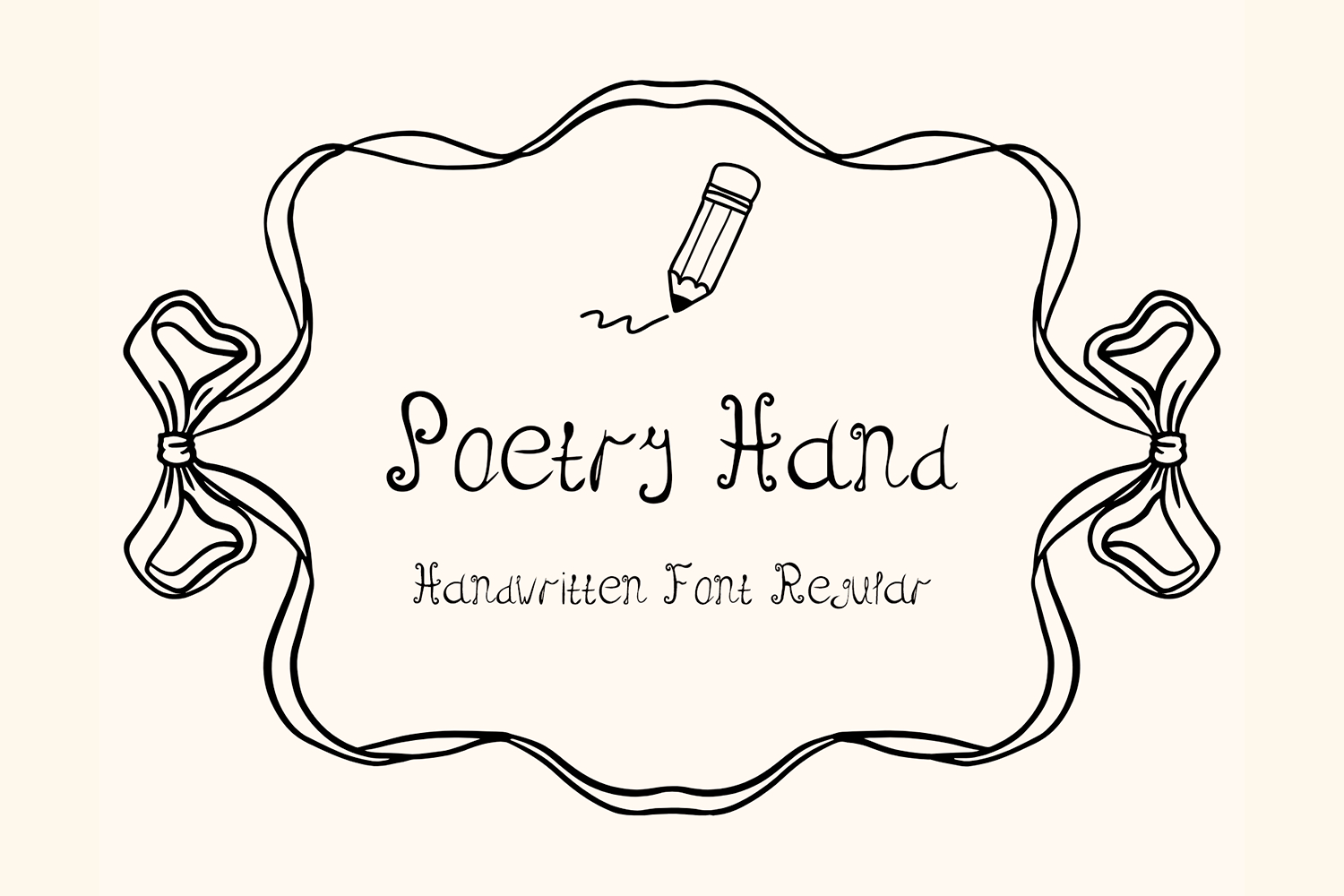
Poetry Hand Handwritten Font
Poetry Hand
Step into a world of elegance and inspiration with Poetry Hand! This graceful handwritten font, as if written by a talented poet, will infuse your projects with sophistication. Ideal for creating an atmosphere of warmth, creative freedom, Poetry Hand will become your indispensable tool in the world of design.
Imagine how Poetry Hand will transform your projects:
Logos and Branding: Create a unique image for your brand, emphasizing its uniqueness and sophistication. Ideal for handmade, cosmetics, confectionery and more. Invitations and Cards: Gift your loved ones and friends unforgettable moments by decorating invitations and cards with the graceful handwriting of Poetry Hand. Websites and Blogs: Add a touch of elegance and warmth to your online space by using Poetry Hand in headings, accents and quotes. Social Media: Capture your audience's attention and create a unique style by decorating your posts and stories with Poetry Hand's exquisite handwriting. Product Packaging. What you get with Poetry Hand:
Elegant Handwritten Font: Clean lines, smooth transitions, and unique flourishes create a unique handmade effect. Multi-Language Support: Use Poetry Hand to create projects in multiple languages. Large Glyph Set: Includes standard symbols, numbers, punctuation, and a variety of alternate glyphs to create unique compositions. Ease of Use: Integrates with all popular graphic editors. Poetry Hand is more than just a font. It is a tool that allows you to express your feelings, convey your ideas, and create something truly special.
Poetry Hand Handwritten Font